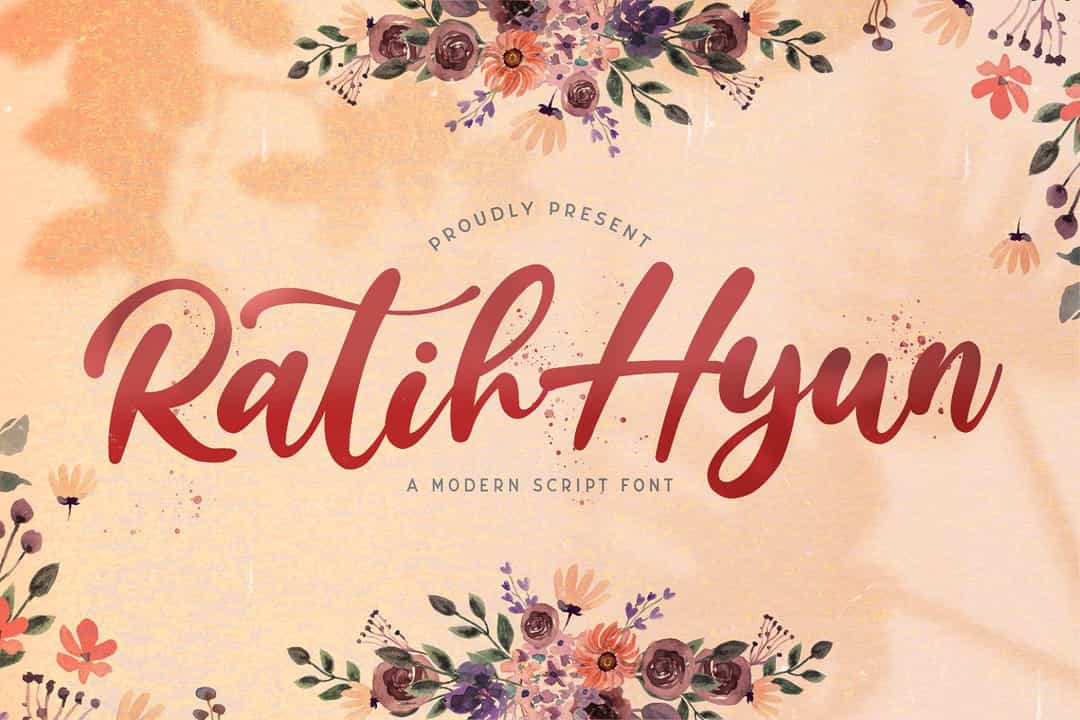
Ratih Hyun is a calligraphy script typeface designed to be the fans’ favorite, with a touch of classical calligraphy motifs and a contemporary look. This script typeface is a must-have in your arsenal, get it today and see the improvement in your work.